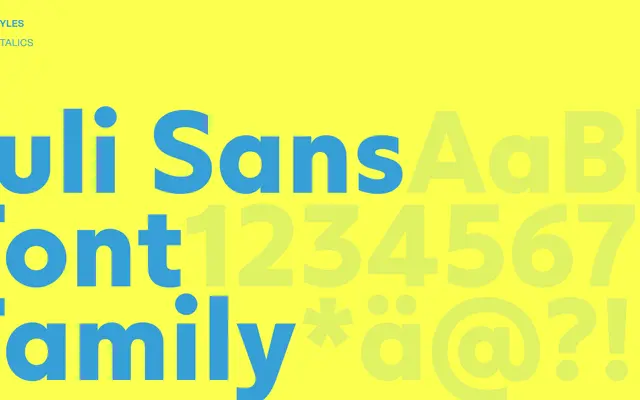
Juli Sans
A sans-serif from Copenhagen-based Playtype, presented with minimal detail on the foundry's product page.
Juli Sans is a sans-serif typeface from Playtype, a Copenhagen foundry known for clean, considered type design. The page offers little technical detail, but the name and foundry context point toward a contemporary humanist or neutral sans intended for editorial and identity use. Further weights and language support are not confirmed by the available copy.
The name and sparse page copy suggest a humanist sans design; without further detail, the humanist sans subcategory is the most likely fit for a contemporary foundry release from Playtype.